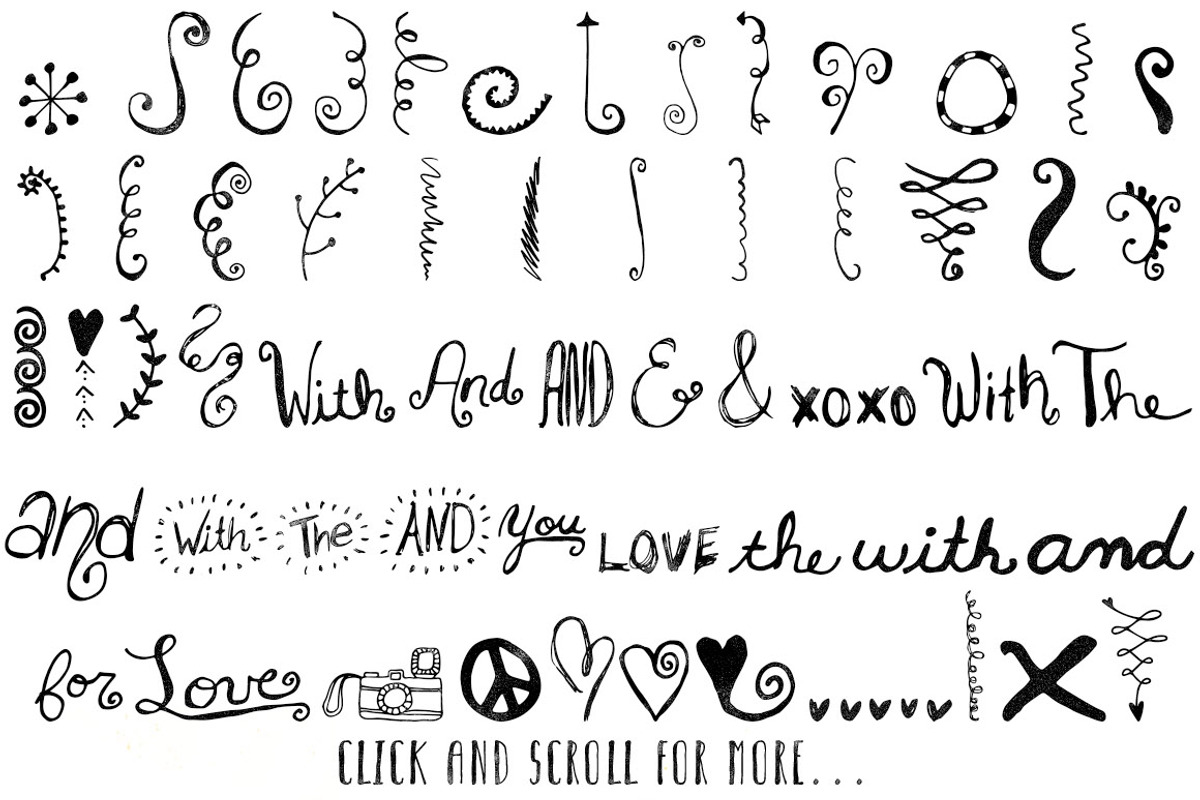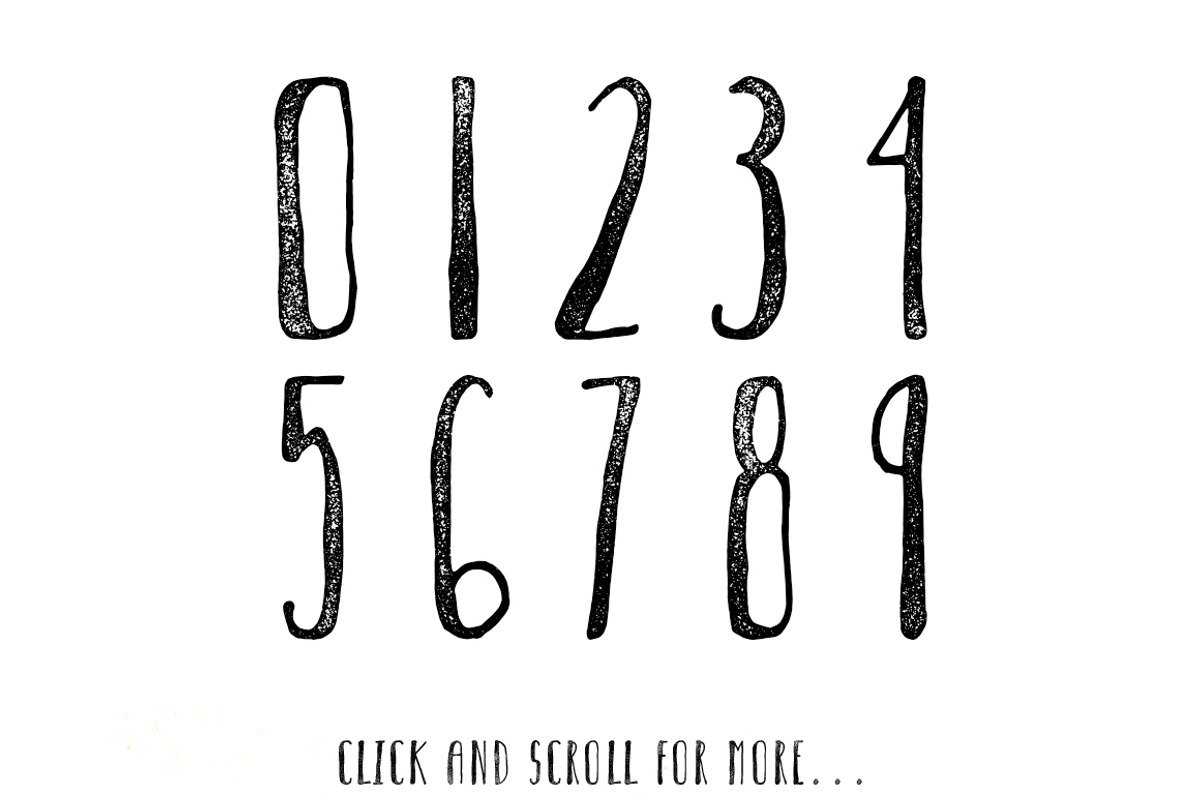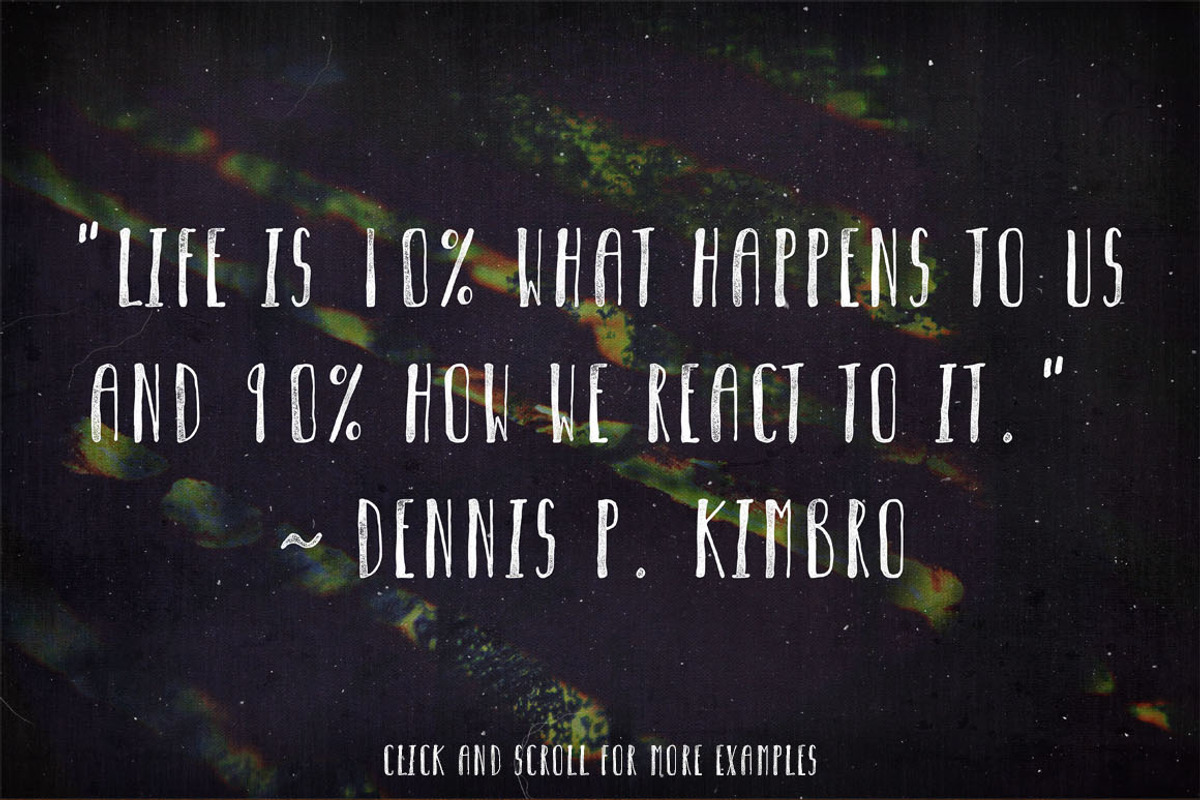
Threadbear Font
Threadbear Font by Heather Green Designs is a font selected for branding, posters, packaging, typography.
Why Threadbear Font is worth a look
Threadbear Font by Heather Green Designs fits naturally into Branding, posters, packaging, typography.